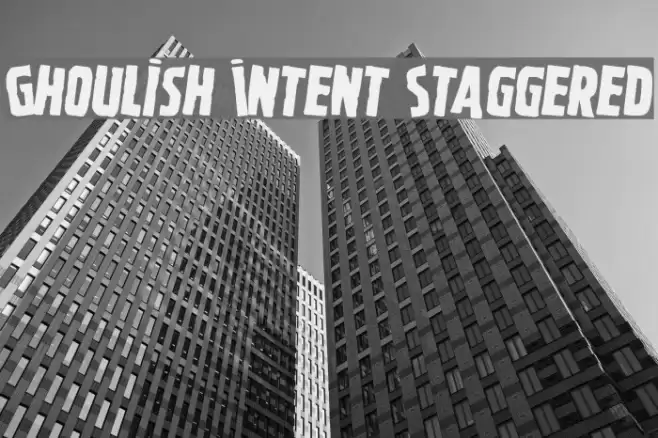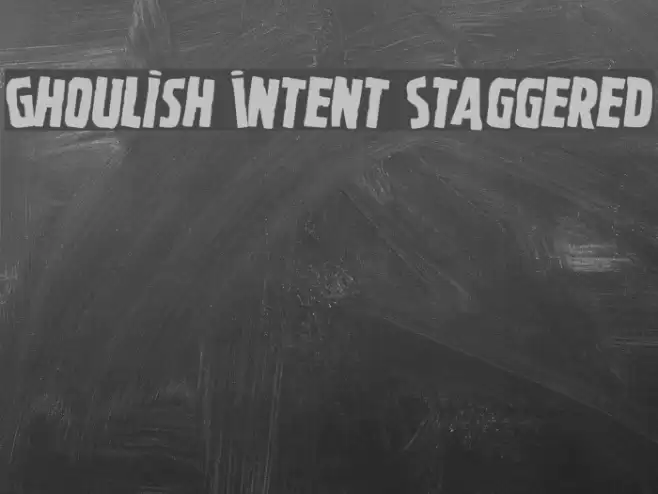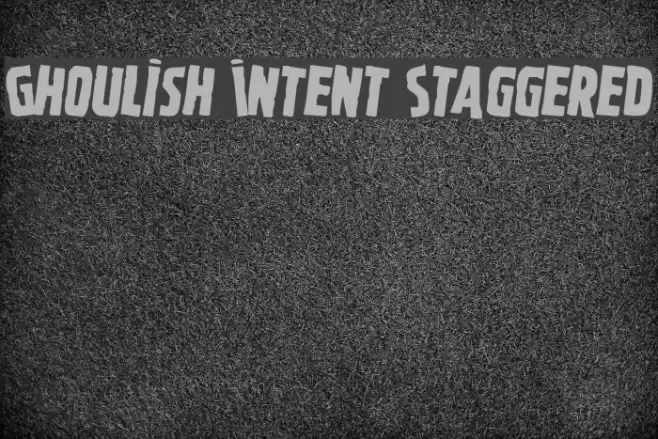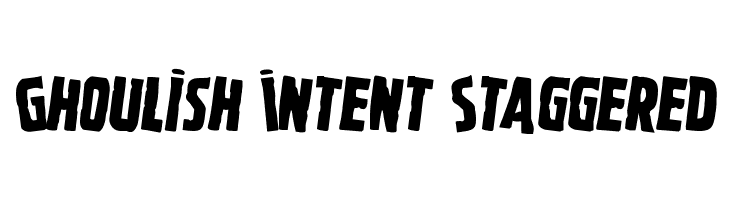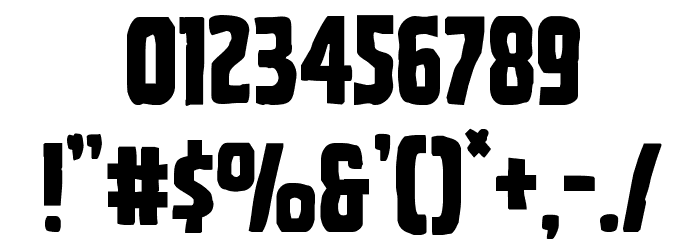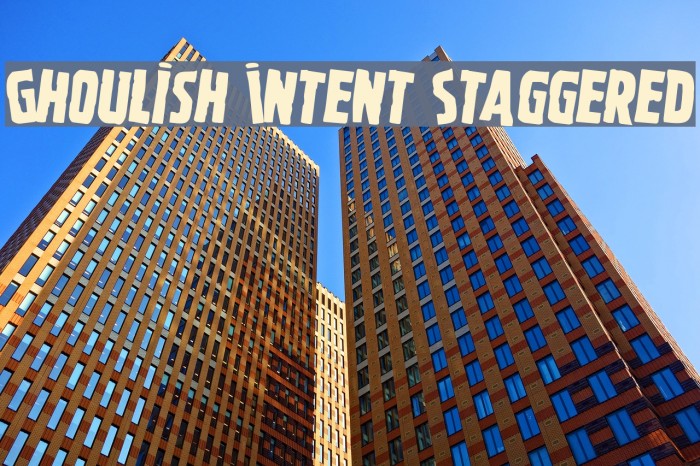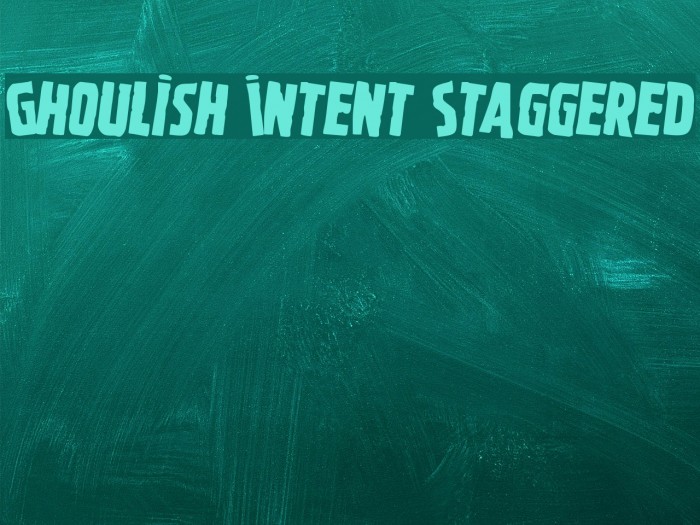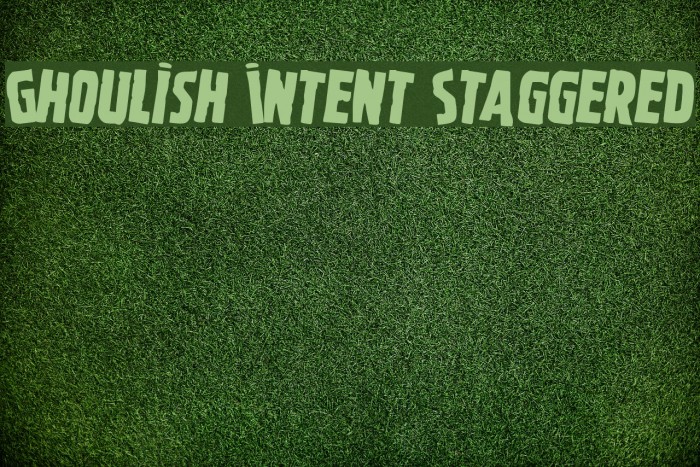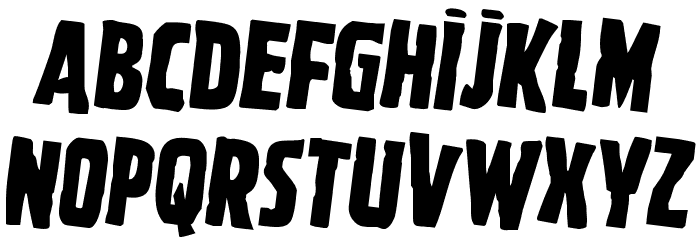
Ghoulish Intent Staggered Font
Ghoulish Intent Staggered Description
This font exudes a spooky, playful vibe with its staggered, uneven letterforms that seem to dance across the page. The bold, thick strokes give it a strong presence, while the irregular shapes add a touch of whimsy and unpredictability. Each character appears slightly tilted or distorted, enhancing the eerie, ghostly theme. The uppercase and lowercase letters maintain a consistent style, ensuring readability despite their quirky design. Numbers and special characters follow the same aesthetic, making this font versatile for various creative projects. Its unique style is perfect for Halloween-themed designs, posters, or any project that requires a touch of the macabre.
A bold, staggered font with a spooky, playful vibe, perfect for Halloween themes from Horror fonts.
- Proposed Projects: Ideal for Halloween posters, spooky invitations, themed merchandise, and creative branding.
- Use Case: Headlines, Logos, Themed Designs